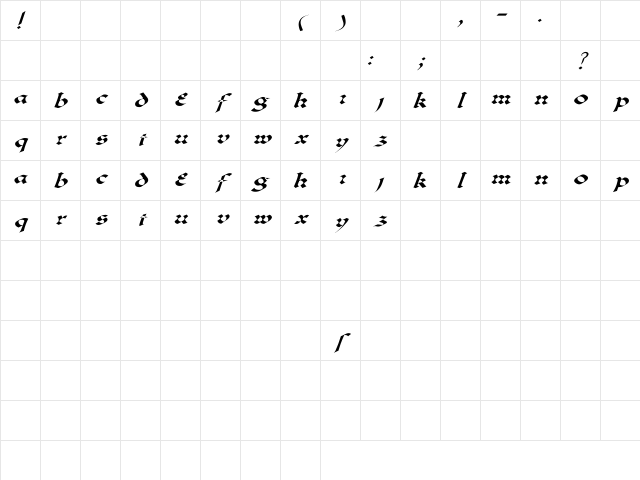
Lombardo Wd Italic Italic
Design Context for Lombardo Wd Italic
Lombardo Wd Italic is a composed and adaptable typeface that performs quietly and consistently across a wide range of design contexts. The slanted form adds forward momentum and visual energy.